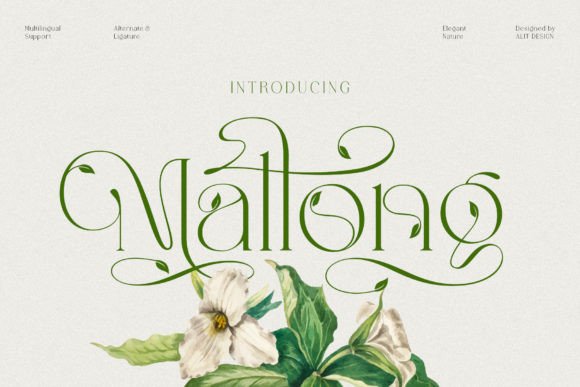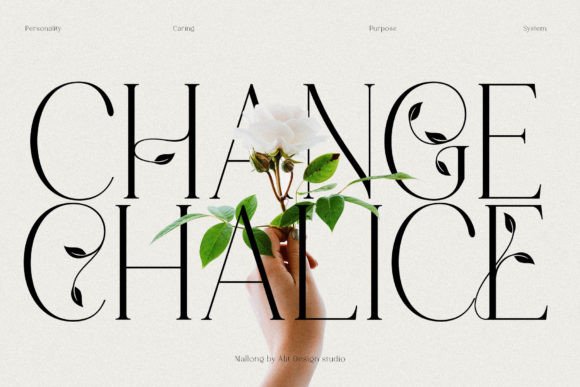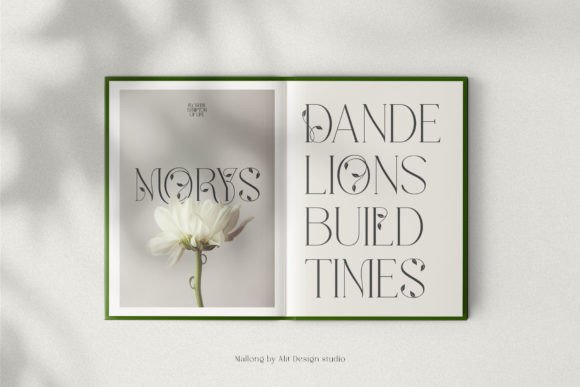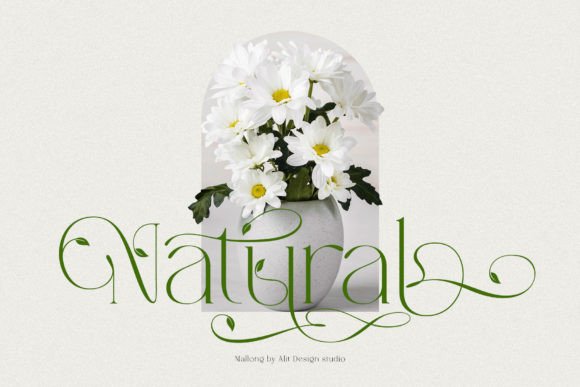
Mallong Font: Elegant Serif Typography for Natural & Unique Branding
About the Mallong Font
Get ready to be inspired by Mallong Font, a fresh and dynamic typeface for modern creators. Mallong font is a serif typeface that embodies elegance and naturalness. Its design features classic serif details, combined with graceful curves and a unique leaf-outline swash, that adds a touch of beauty to each character. This font is perfect for creating sophisticated designs with a touch of organic charm. Keep in mind that the font is PUA encoded, meaning that you can access all delightful glyphs and swashes effortlessly.
Mallong’s elegant yet organic nature makes it ideal for projects requiring sophistication and a touch of handcrafted charm. Consider it for branding materials emphasizing quality and natural products, high-end packaging design, or short-form editorial pieces like magazine headlines or invitations. Its swashes add a unique flair to logos and short text blocks. However, Mallong’s distinctive details make it less suitable for body text or UI elements where readability is paramount.
For optimal pairings, consider complementing Mallong with a clean sans-serif like Lato for body copy or a geometric sans-serif such as Futura for a more modern feel. A script font with a similar level of elegance, but less pronounced ornamentation, could also create a harmonious pairing for applications requiring both formality and visual interest.
The overall personality of Mallong is sophisticated and refined, possessing a quiet confidence that avoids being overly fussy or decorative. It conveys a sense of timeless quality and understated luxury.
Mallong Font Usage Examples
Mallong Font Example